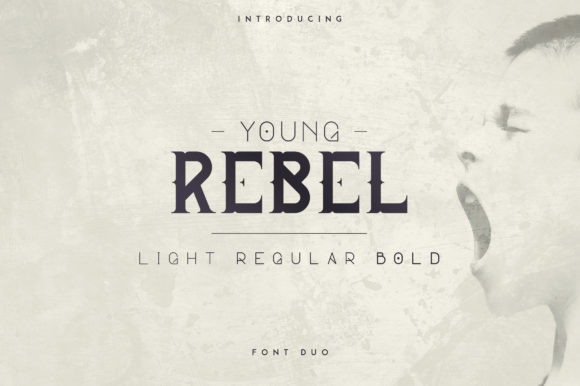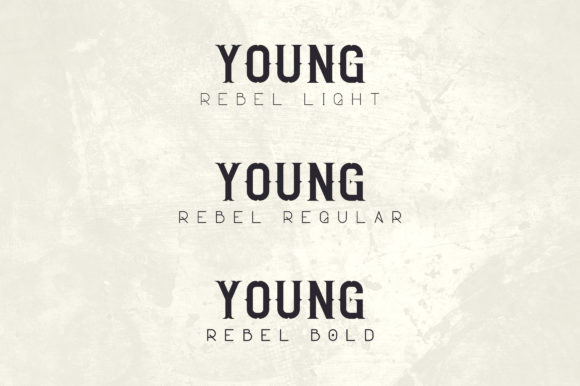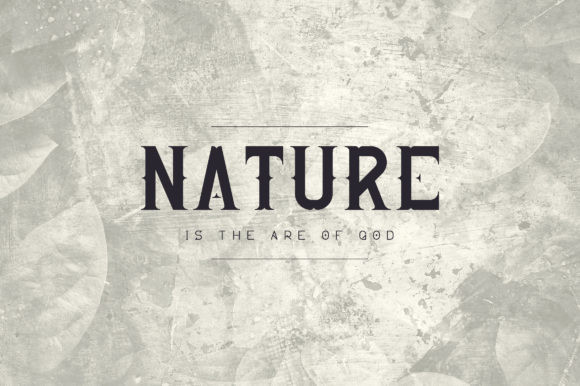
Rebel Font
Rebel is a modern serif font. It is very versatile, which makes it perfect for branding projects, home-ware designs, product packaging, wedding invitations, magazine headers – or simply as a stylish text overlay to any background image.